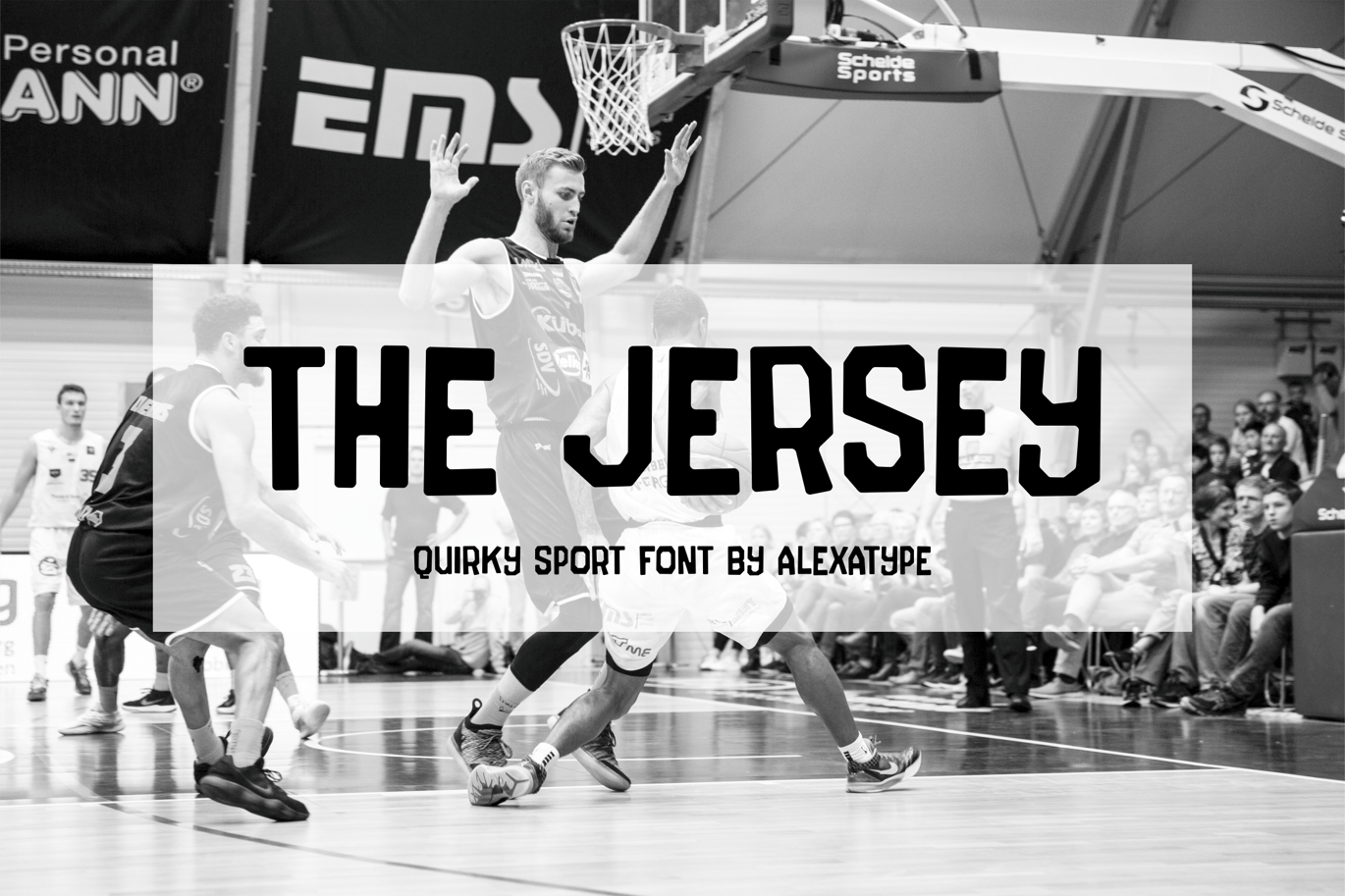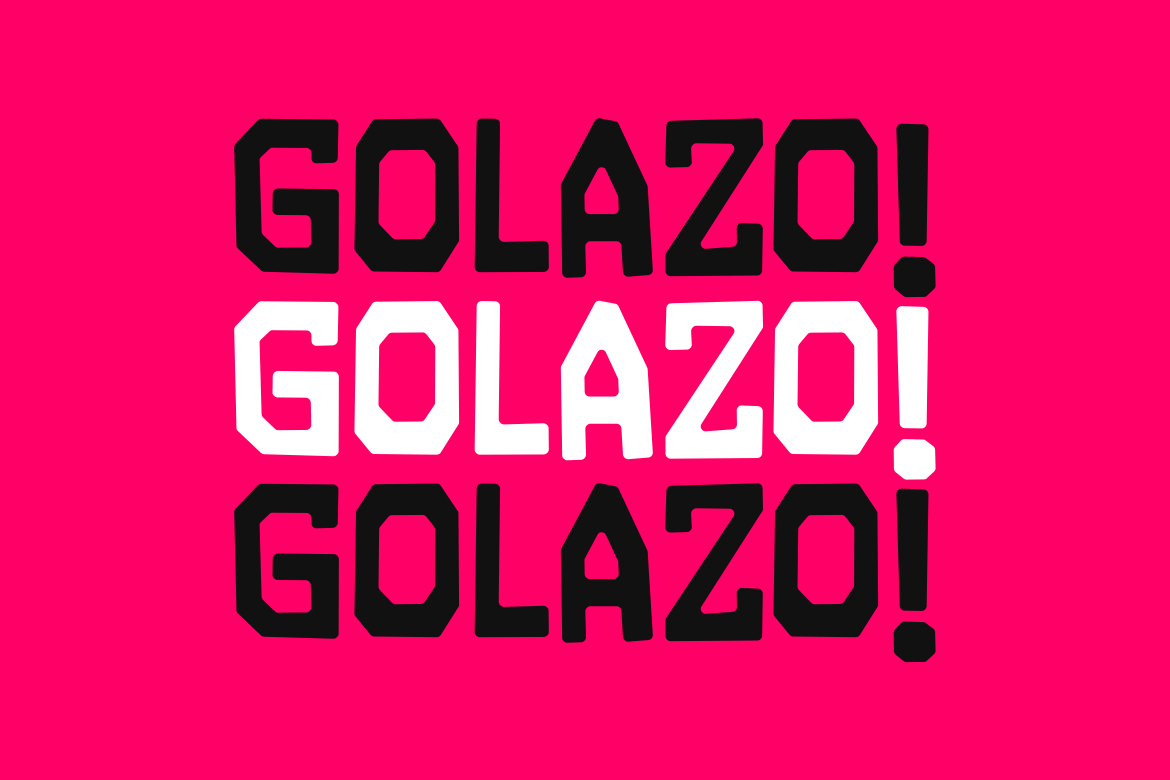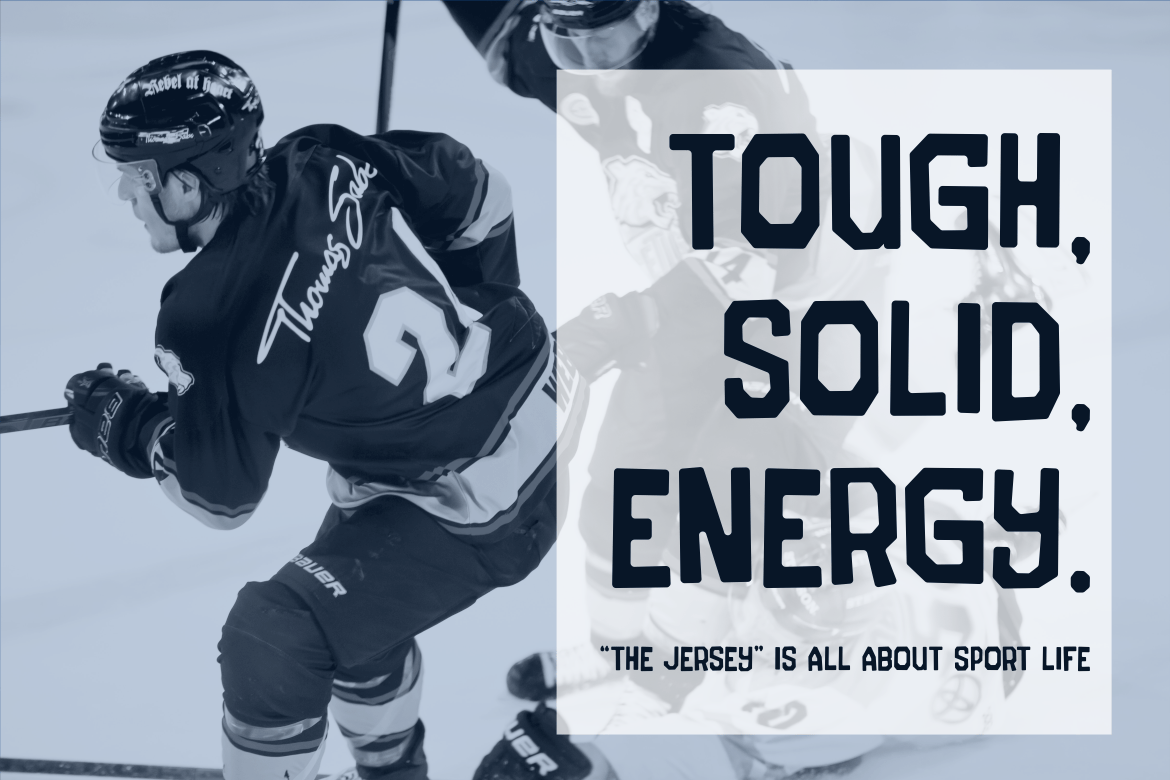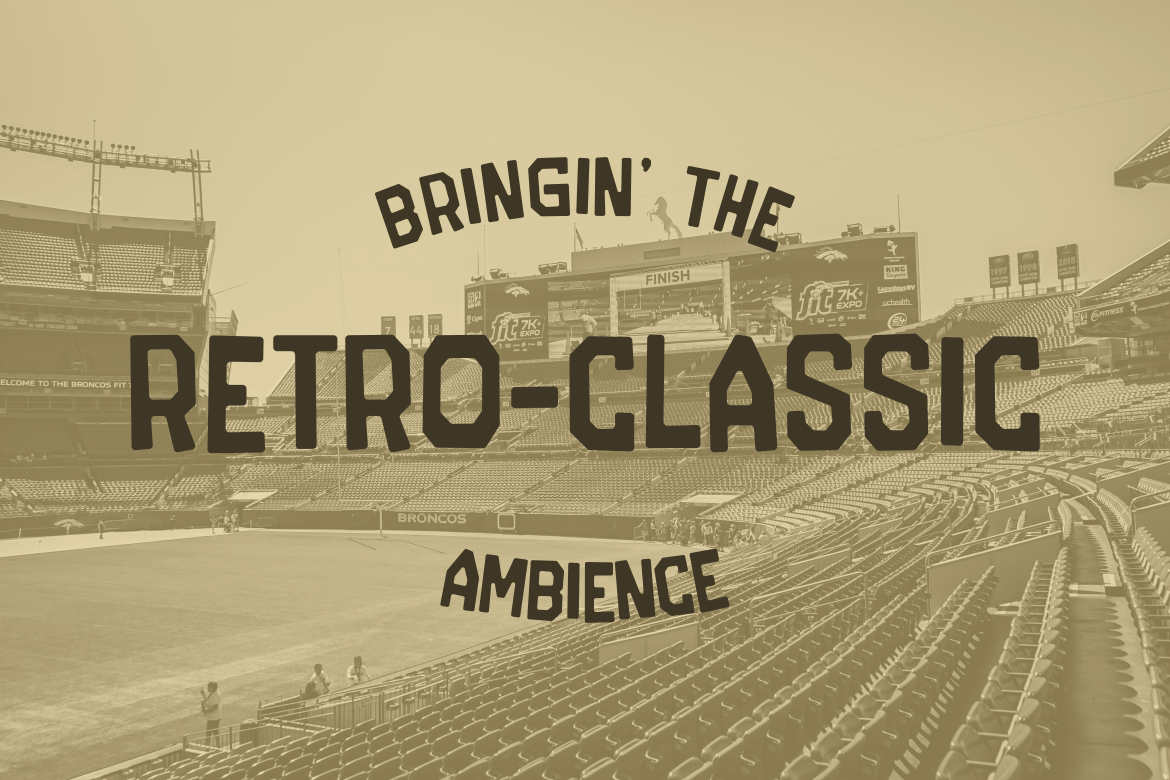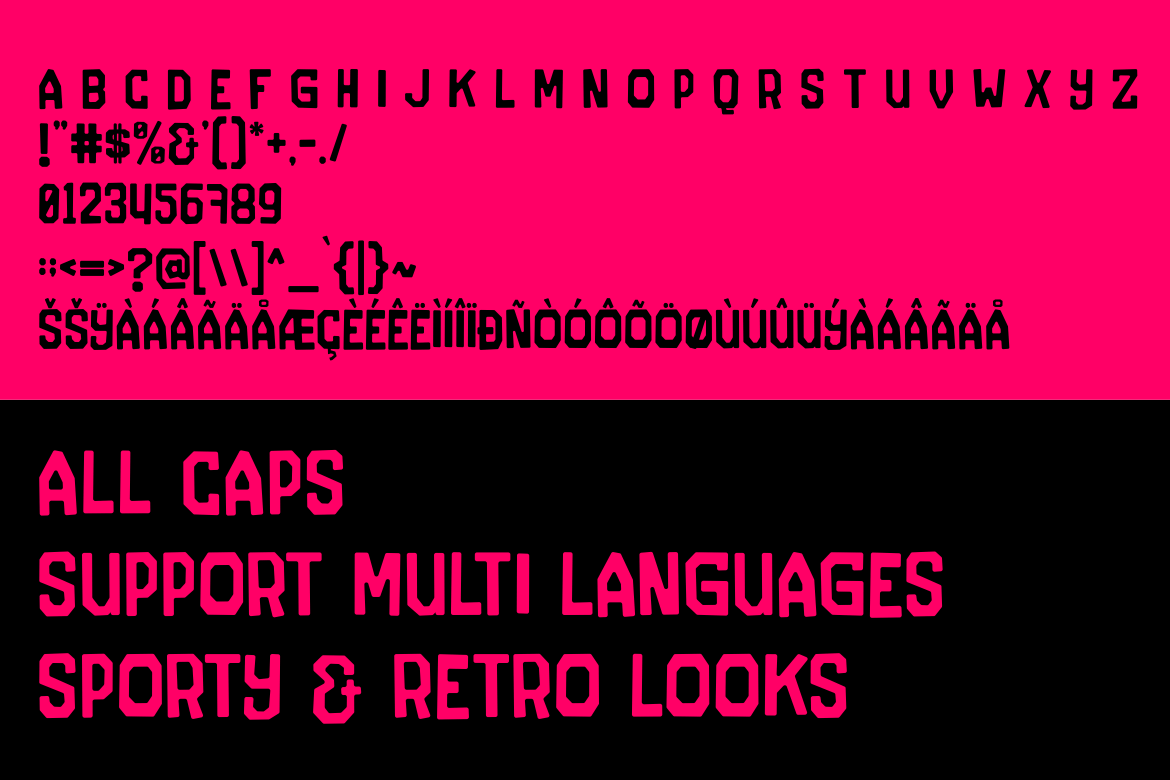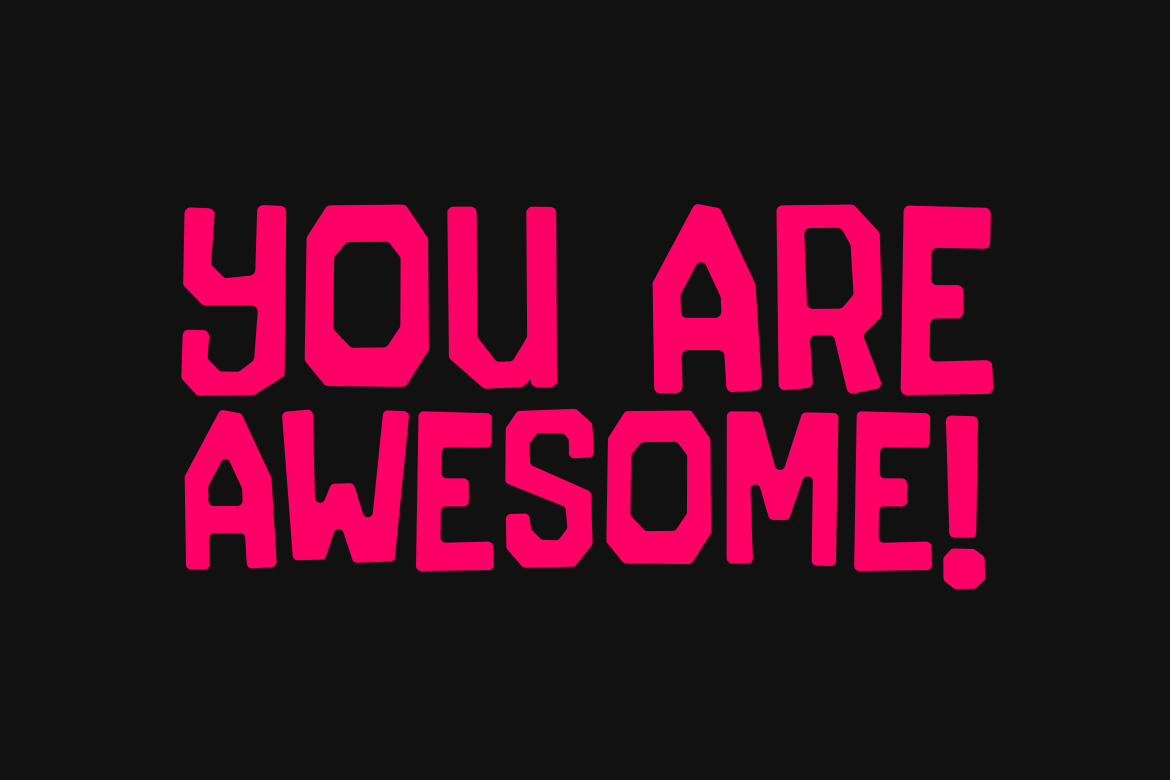
Bold & Retro-Inspired Sports Font – The Jersey
The Jersey is a strong, all-caps display font designed for sports branding, retro jerseys, and high-impact typography. Inspired by classic athletic lettering, this font combines bold structure and vintage charm, making it perfect for team logos, game-day posters, and sports merchandise. Whether you’re designing hockey banners, soccer branding, or retro-style apparel, The Jersey ensures your typography stands with power and confidence.
Key Features
- Tough & Athletic Design – Inspired by vintage sports jerseys and bold athletic type.
- Perfect for Sports & Retro Branding – Great for team logos, posters, and merch.
- High-Impact & Readable – Designed for maximum clarity in large displays.
- Versatile for Digital & Print Use – Works seamlessly on jersey numbers, social media, and apparel.
The Jersey is ideal for sports teams, retro branding, and athletic merchandise. Its bold letterforms make a statement in game-day graphics, stadium banners, and jersey designs. Whether you’re crafting football, hockey, or soccer visuals, The Jersey delivers a timeless, powerful presence with a vintage sports edge.